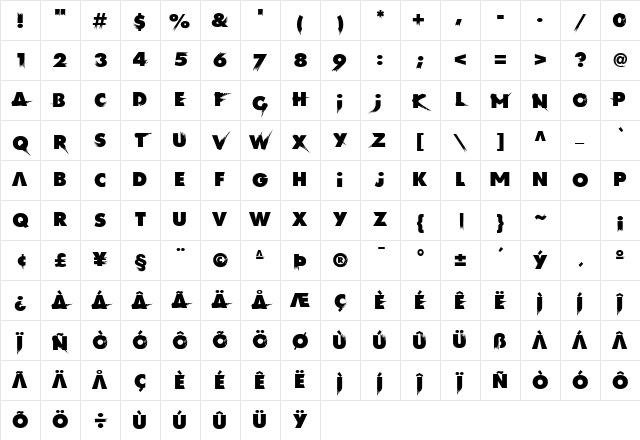
Akira Regular
Design Context for Akira
Akira is a composed and adaptable typeface that performs quietly and consistently across a wide range of design contexts.